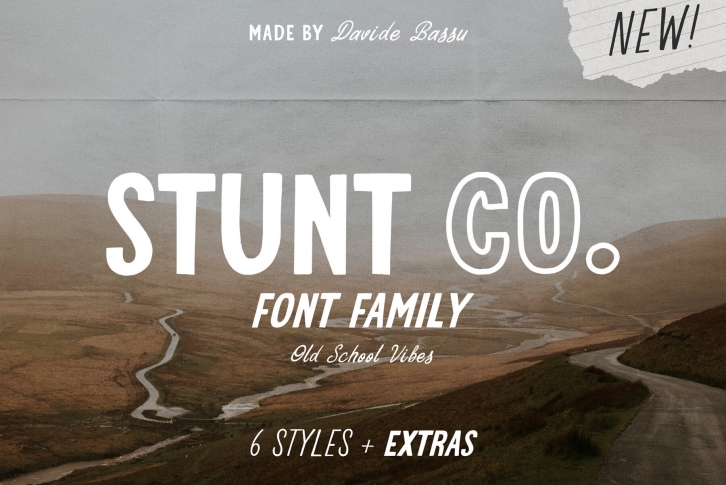
With such a diverse range on offer, this typeface offers everything you need to promote your brand with retro designs for clothing brands, printing materials, social media profiles and all your logo and branding needs. Creative digital marketing is made easy with these fonts— adding a unique graphic element to any marketing campaign!